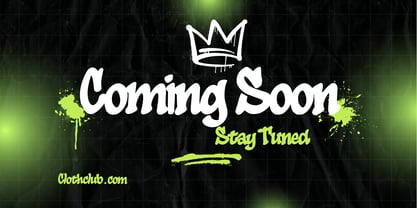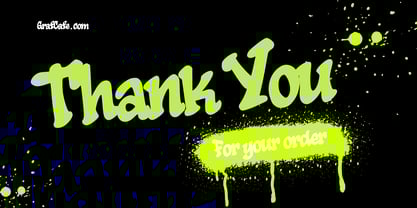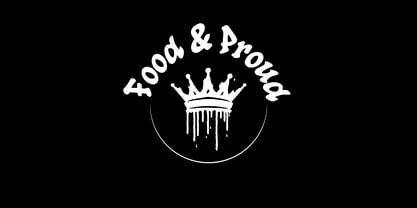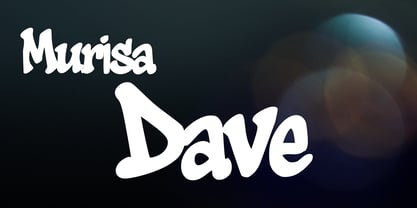
Murisa Dave
The Murisa Dave Font Family was designed by Lili Sadili and published by Murisa Studio. Murisa Dave contains 1 styles.
🎨 Murisa Dave — Where Graffiti Meets Masterpiece Unleash the raw spirit of urban rebellion with Murisa Dave, a graffiti-style font that refuses to whisper. Every curve, every stroke is a tribute to street culture—bold, playful, and unapologetically original. Designed for creators who crave edge and authenticity, this font turns ordinary text into visual attitude. 💥 Why Murisa Dave Stands Out 🔤 Full alphabet & numerals with handcrafted flair 🌍 Supports Eastern European languages for global reach 🧠 Perfect balance of chaos and control—wild yet legible 🖼️ Ideal for posters, apparel, album covers, branding, and digital art ✨ Built for designers who demand uniqueness and high-impact visuals Whether you're crafting a headline that screams or a logo that sticks, Murisa Dave delivers the punch your project deserves. This isn’t just a font—it’s a statement